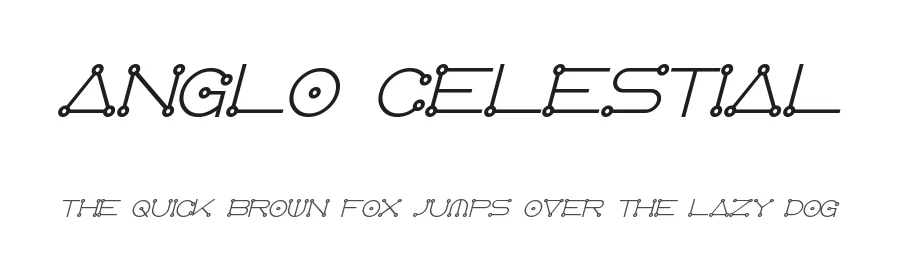
About Celestial Font
Celestial is a decorative font designed by Pixel Sagas. It includes 236 glyphs, a regular weight, TTF (TrueType) format, and 209 languages. Celestial is free to download; check the license details on this page before commercial use. Decorative fonts like Celestial work best for logos, posters, packaging, and standout headlines.
Celestial Font is a decorative font that shines as a display or heading face. Pair it with a clean sans-serif or serif font for body text β the contrast creates a clear hierarchy while the two styles stay balanced and easy to read.
Celestial Font
by Pixel Sagas
Celestial Font is a decorative typeface by Pixel Sagas, ideal for logos, invitations, branding, and creative projects.